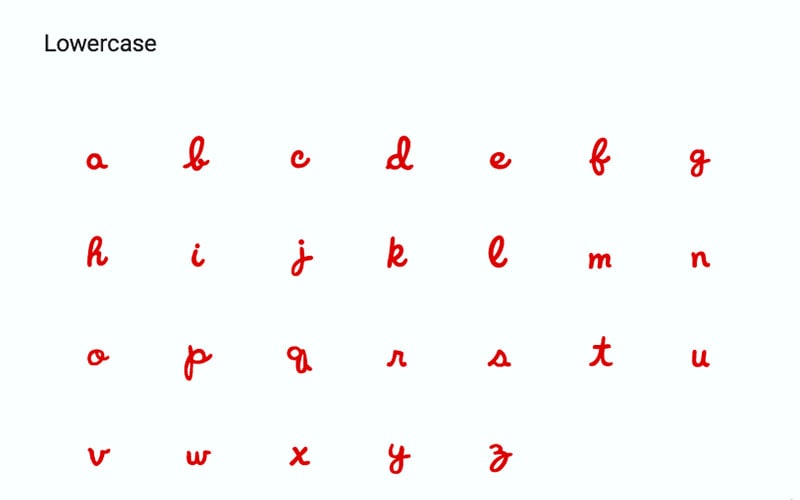
Logo Script Typeface
We are introducing The Chick-fil-A Font, a Logo Typeface that captures the distinctive and friendly look of the popular fast-food chain’s logo Known for its playful yet elegant script.
This font is perfect for projects that seek to evoke the charm and warmth associated with the Chick-fil-A brand. The Chick-fil-A Font is inspired by the brand’s logo.
This has been designed by Daniel Dell, aiming to replicate the original hand-drawn style. The original logo design was created by a designer at the chain’s inception, reflecting the brand’s focus on quality and hospitality.
It is generally available in a single style, designed to mimic the unique script used in the restaurant’s logo. This style features smooth, flowing curves and a casual, welcoming feel, perfect for creating an approachable atmosphere.
It is ideal for a variety of design applications, including Restaurant-themed graphics and menus, Branding and logo design for food-related businesses, Casual and playful promotional materials, and many more.
It primarily supports the English language due to its limited character set focused on the brand’s logo design. It is best suited for display purposes and short text layouts.